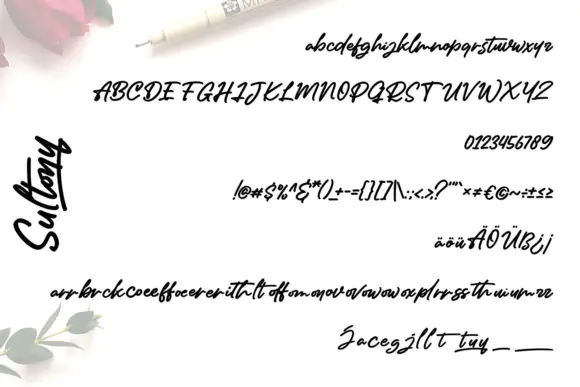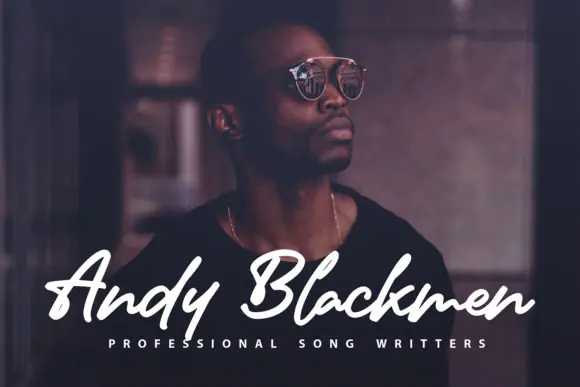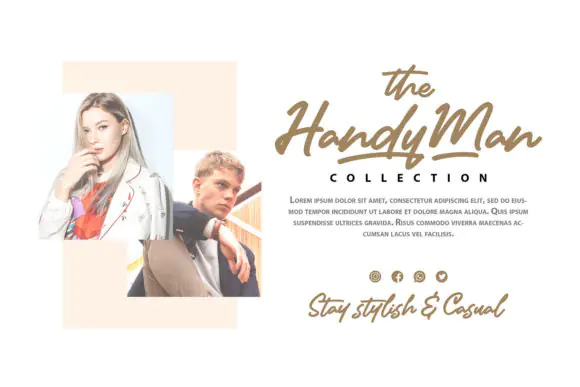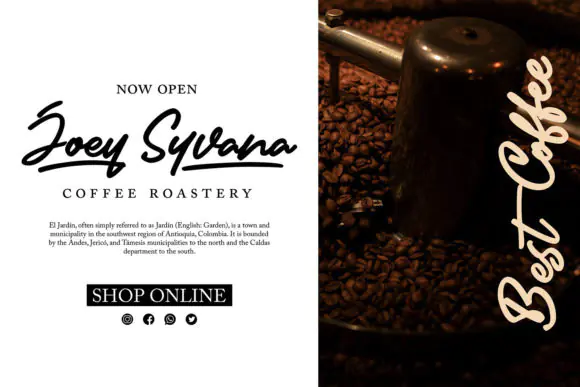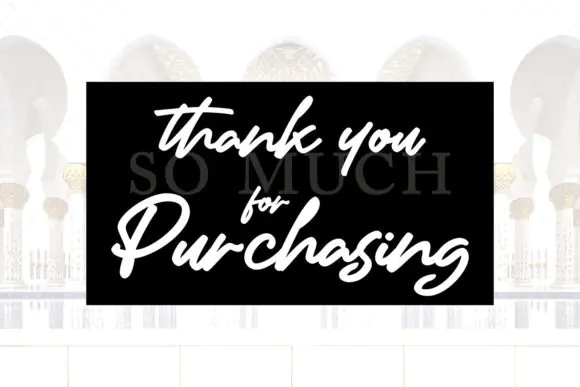
Create stylish, expressive, and handmade-looking designs with Sultony Marker Handwriting Font, a beautiful handwritten font inspired by marker lettering and calligraphy style. This font is perfect for designers, crafters, small business owners, and content creators who want to add a personal, artistic, and modern handwritten touch to their projects.
Sultony combines the casual feel of marker handwriting with the elegance of calligraphy, making it suitable for both relaxed and stylish designs. Its natural handwritten flow works beautifully for quote graphics, social media posts, branding materials, logos, packaging, invitations, greeting cards, stickers, labels, apparel designs, and digital artwork.
Whether you are creating a signature-style logo, a motivational quote design, a modern t-shirt graphic, a handmade product label, or an Instagram post, Sultony adds warmth, personality, and creative charm to your typography.